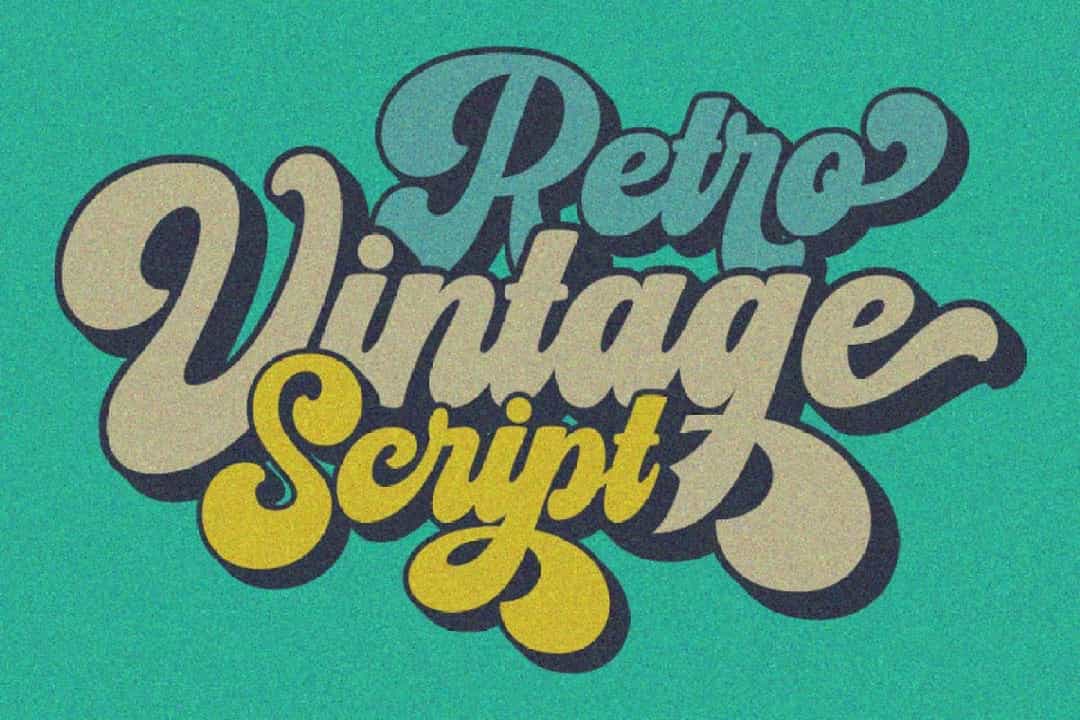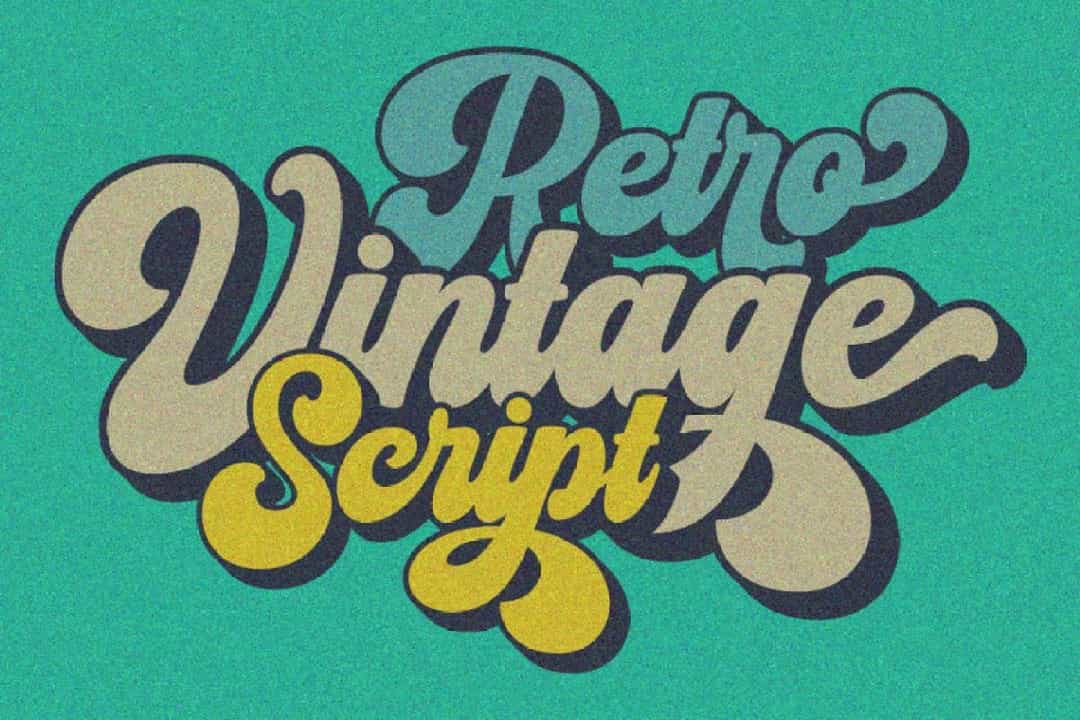
Scaferi is a retro-inspired, fun and bold script font ready to bring your designs to a whole new level. When used on stickers, posters, apparel or social media posts featuring retro themes, it will surely impress followers and win you praise from fellow creatives! Plus it can even be PUA encoded for easy accessing all its characters!